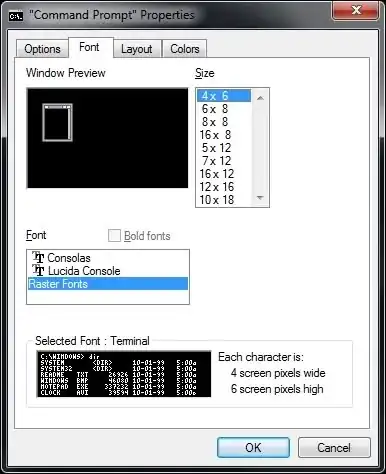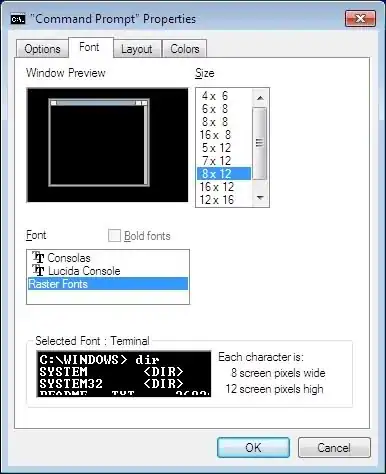
When I logon locally my command window (cmd.exe) displays with default font that is 8x12. But when I logon remotely and open command window, it opens with the smallest possible font selection. Opening window properties and setting font size, the default 8x12 font is missing from the list.
What should I do to get this font back in the list?
Following screenshots show settings when logged on locally and remotely. Local machine is not Aero capable, but remotely I can have Aero environment. I've also tried setting it to basic, but there was no change.
Local logon
Remote logon
Interesting issue - this answer is just an attempt to encircle it rather than an immediate solution:
Section How Windows NT Matches Fonts within Chapter 8 - Fonts of the MS Windows NT Workstation 4.0 Resource Guide qualifies the Terminal font in question as Raster, fixed, display-dependent size, other than for example the MS Sans Serif font, which is qualified as Raster, proportional, 8, 10, 12, 14, 18, 24 (not to speak of the TrueType fonts, which are all scalable of course).
Unfortunately I have been unable to surface any particular font matching algorithm, still a quote from the almost ancient Windows 95 Printing and Fonts: The Basics might add to the picture, see section Fonts Provided for Compatibility:
The user interface in Windows 95 relies on TrueType fonts. However, three fonts — System, Fixed, and OEM (or Terminal) — are installed to support display and output devices to support other applications that may require these fonts. Each of these fonts supports two display types — 8514/a (1024x768) resolution and VGA (640x480) resolution.
Consequently I suspect the particular font size missing due to non matching characteristics of your remote desktop clients display capabilities, though admittedly this would be quite surprising giving all the other width/height pixel tuples available. Still the fact that the font is missing in PowerShell console too (as per comments to r0cas answer) would back this being a system wide font matching effect rather than an issue of any particular program like cmd.exe.
What should I do to get this font back in the list?
In case Windows font matching would indeed be causing this as suspected above, you might simply be unable to solve this. Eventually changing your clients display resolution and/or DPI settings could make a difference here though; whether this would be an option at all depends on your particular environment and requirements of course.
Problem solution found !!! Change "System Locale" = Language for non - Unicode programs to US English and reboot. And then 8 x 12 font available again !
Radek, Your solution don't resolve this problem. If your language is different from the U.S. you don't have diacritics in console aplications after change system locale.
We had the same problem with missing raster fonts 8x12 in Windows 2008 Terminal Server sessions. I resolve this after install converted raster fonts to unicode Trutype fonts from this site: http://www.yohng.com/software/terminalvector.html
Adding property Terminal with value app852.fon to registry key HKEY_LOCAL_MACHINE\SOFTWARE\Microsoft\Windows NT\CurrentVersion\Fonts helped me.
I did sfc /scannow in elevated CMD prompt (as I read somewhere else). It found no errors, but after I rebooted Windows 7, the 8x12 size came back.
0
Try to set the properties of Screen Buffer 80x420 and Window Size 80x25. This is the default setting of fonts 8x12.
Let me know...
0
This is something of a wild guess, but I wonder if this is related to the remote desktop font smoothing feature. You could try changing the RDC font smoothing setting. Within RDC, select Options -> Experience, then change the Font smoothing setting and try connecting again.
0
Maybe that font is missing on the machine you're logging in remotely from. I think, by default, the windows command line uses font files (*.fon) for each specific size listed in the command prompt properties pane, instead of using normal TrueType fonts (*.ttf). Look in your fonts directory, you should be able to see them. I'm on windows 7 right now, so i can't look at this moment.
0
Something I often see is when RDPing into a machine, the locale of the the machine used to initiate the session is used - and if the remote machine misses that locale, things can mess up quickly... though in this case it seems completely implausible that the 12x8 version of the font is missing some of the characters needed on the initiating machine's locale - but it was my first thought so I thought I'd share it ^^
Have you tried RDPing into it from another machine than the one you're experiencing the problem from? RDP accelerates a lot of stuff at the client.